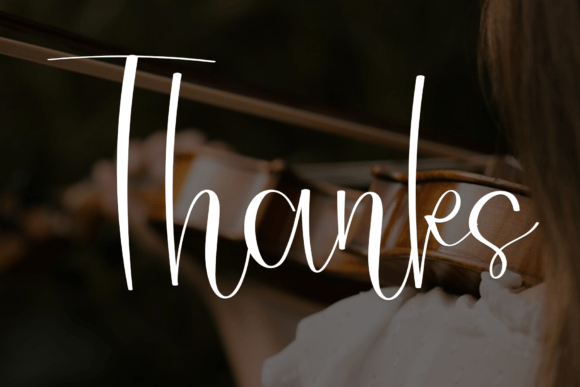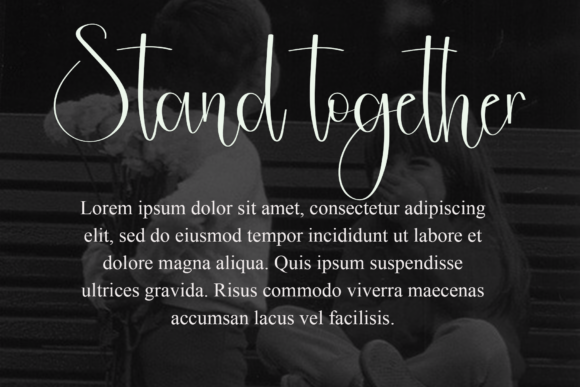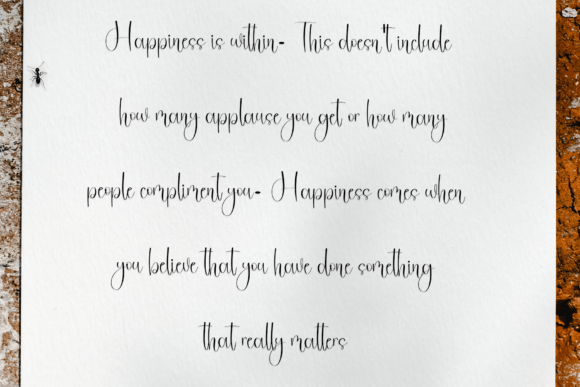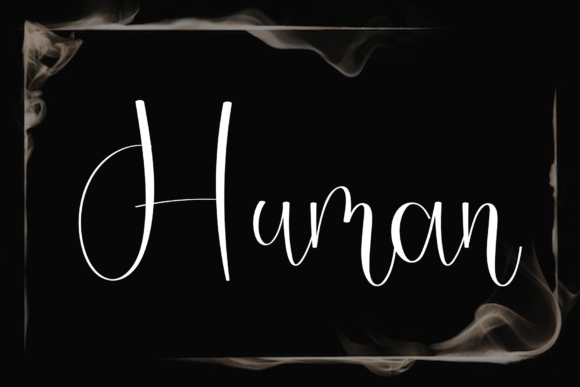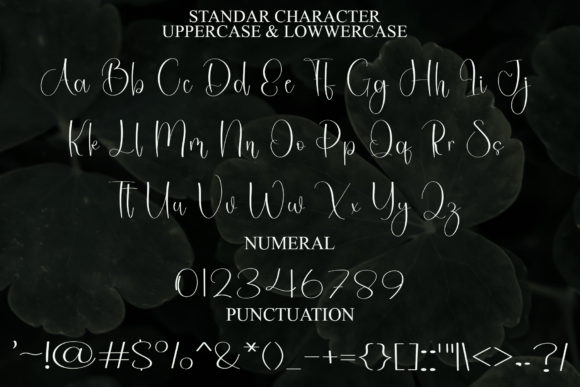
Introduction to Smooth Handmade Font
Have you ever been browsing through a beautifully crafted design project and thought, ‘I wish I could create something like that’? For designers, finding the perfect font can be a game-changer in bringing our creative vision to life. That’s where the Smooth Handmade Font comes in – a stunning and versatile font that adds a touch of elegance to any design project.
Key Features of Smooth Handmade Font
- Unique, Hand-Drawn Design: The Smooth Handmade Font features a distinctive, hand-drawn style that adds a touch of creativity to any project.
- Transparent Background: The font’s transparent background allows for seamless integration with other design elements, making it a versatile design resource.
- Perfect for Creative Projects: The Smooth Handmade Font is ideal for designers and artists working on creative projects, such as logos, branding, and typography-based designs.
- Design Resource: The font is a valuable addition to any designer’s toolkit, providing a unique and high-quality design element for a variety of creative projects.
Honest Review: Smooth Handmade Font
I recently stumbled upon the Smooth Handmade Font, and I’m excited to share my thoughts on this design resource. As a designer, I’m always on the lookout for high-quality fonts that can elevate my creative projects. The Smooth Handmade Font is a beautiful addition to any design library.
Here are some things that I really like about this font:
- ✨ Unique and handcrafted style that adds a personal touch to any design
- ✨ High-quality design that is perfect for creative projects
- ⚠️ Limited number of styles and weights, which may not be suitable for complex design projects
- ⚠️ Transparent background may require additional design effort to integrate with complex backgrounds
Overall, I’m impressed with the Smooth Handmade Font. While it may have some limitations, its unique style and high-quality design make it an excellent choice for designers working on creative projects. If you’re looking for a free design resource that can add a personal touch to your designs, the Smooth Handmade Font is definitely worth checking out.
Tips for Getting the Most Out of Smooth Handmade Font
To get the most out of the Smooth Handmade Font, use it in conjunction with a transparent background to create a high-quality design. You can also experiment with different font sizes and styles to create a unique and creative project. Additionally, consider using the font in combination with other design elements, such as images or graphics, to add depth and interest to your design.